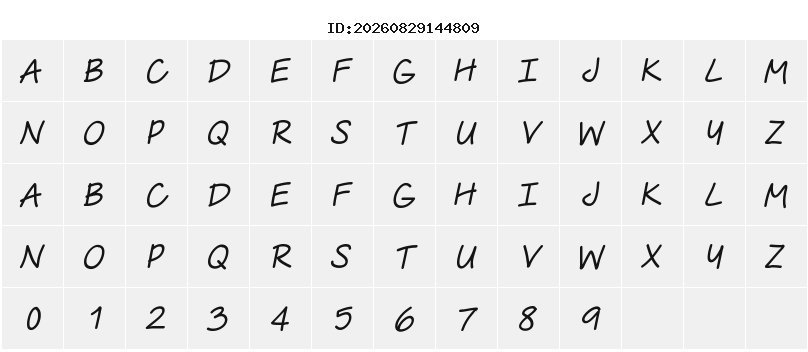
The Urban Way Thin Italic Preview
About The Urban Way Thin Italic.ttf
The Urban Way Thin Italic.ttf is a modern, elegant sans-serif font designed for ultimate readability and visual harmony. Perfect for branding, headlines, web design, and print materials.